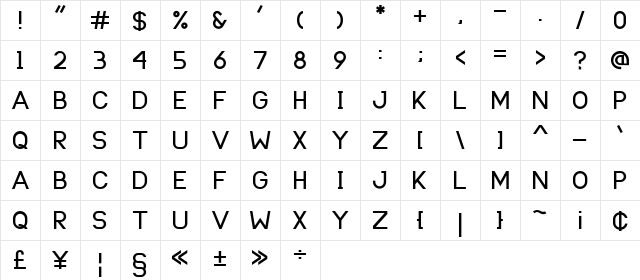
samosan Regular Font Preview
samosan Regular
Design Context for samosan Typeface
samosan takes a measured approach to typography — its balanced proportions and neutral character make it a reliable workhorse for both digital and print work.